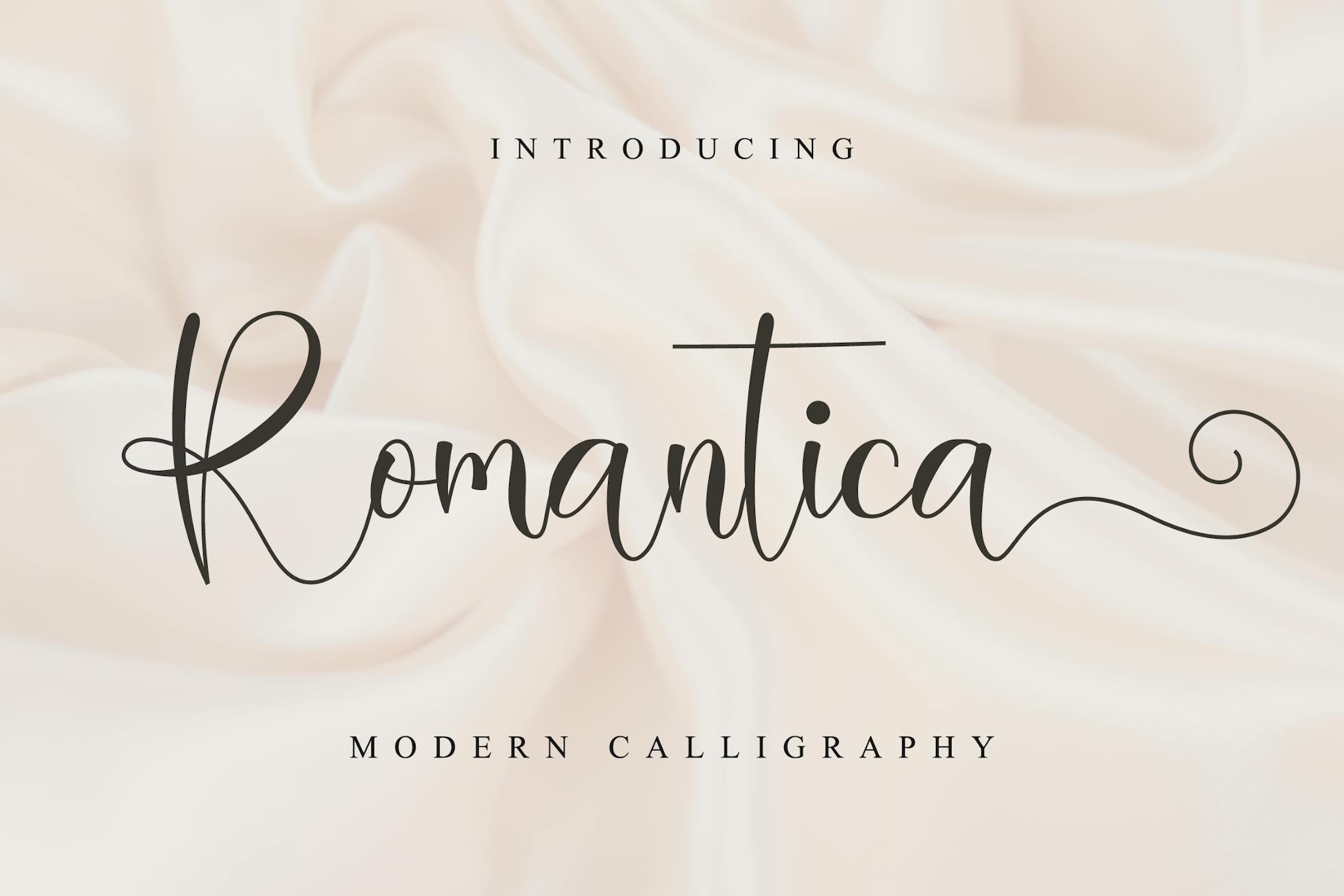
Romantica is an elegant wedding font designed to enhance the beauty of any romantic occasion. With its graceful curves and sophisticated style, it is perfect for invitations, signage, and personalized decor. This versatile typeface can be used at any size, ensuring that your heartfelt messages and special moments are beautifully showcased in every detail.